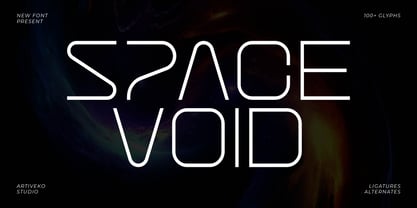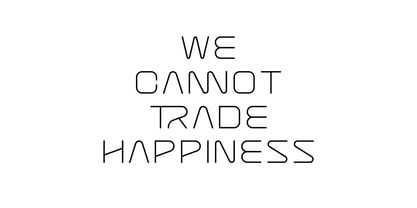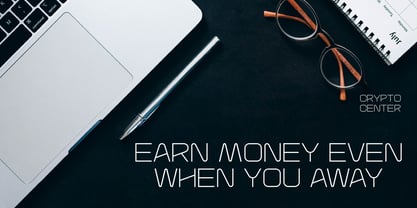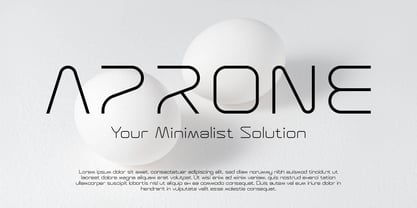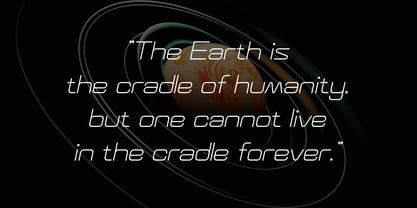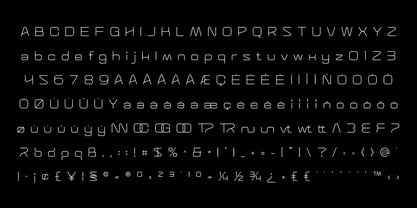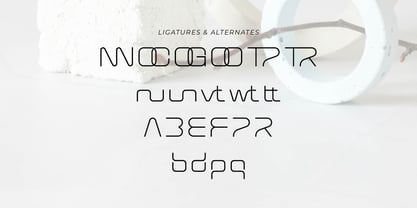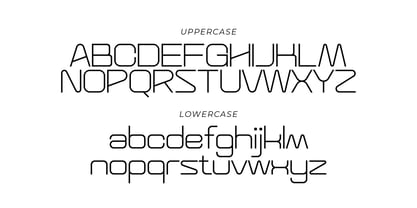
Space Void
La familia tipográfica Space Void fue diseñada por Iwan Alwan y publicada por Artiveko. Space Void contiene 2 estilos y opciones de paquete familiar. Más información sobre esta familia
Space Void is a minimalist modern technology sans serif typeface inspired by futuristic interfaces, cosmic exploration, and advanced digital systems. Featuring sleek geometry and precise proportions, this typeface embodies a clean, space-age aesthetic that delivers a sharp and innovative visual identity for forward-thinking design. Ideal for technology branding, AI platforms, gaming visuals, apps, UI/UX systems, websites, sci-fi posters, and startup projects, Space Void seamlessly combines clarity with futuristic sophistication. Its minimal structure ensures excellent readability, while its cosmic-inspired style evokes a powerful sense of innovation and next-generation design. Whether you’re crafting digital products, cyber concepts, or futuristic branding, Space Void provides a refined typographic system designed for tomorrow. Space Void is not just a font — it’s the language of future design.